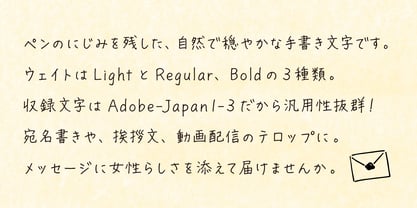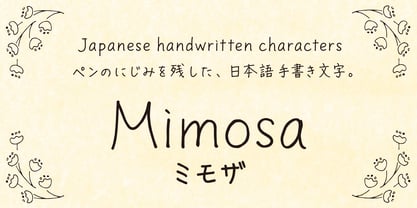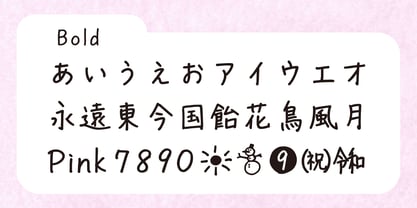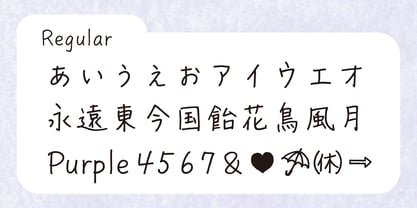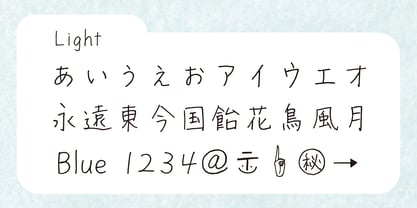
TM Mimosa
by Tomomi Kanda
The TM Mimosa Font Family was designed by Tomomi Kanda and published by Tomomi Kanda. TM Mimosa contains 3 styles and family package options. More about this family
These are natural and gentle handwritten characters by a woman, preserving the subtle ink bleed of a pen. (Approximate thickness: ultrafine, around 0.3mm, thickness: fine, around 0.5mm, thickness: similar to a felt-tip pen.)